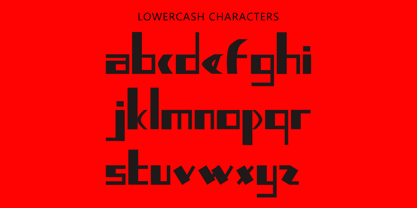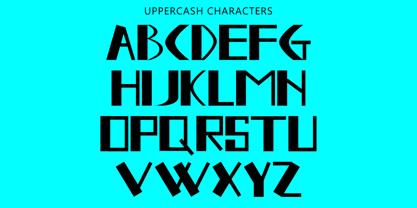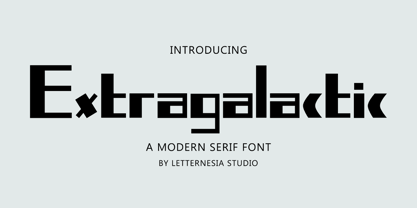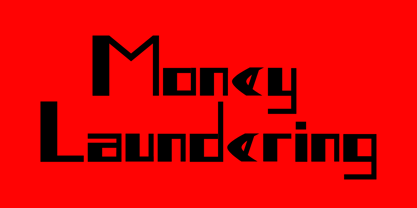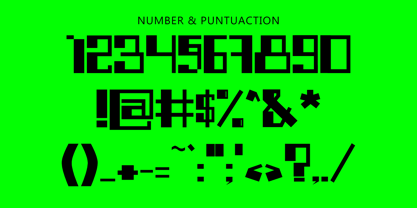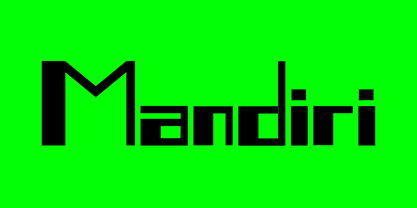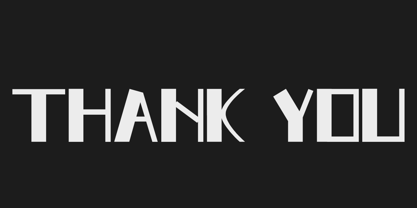
Extragalactic
by Letternesia studio
The Extragalactic Font Family was designed by Ta Siyo and published by Letternesia studio. Extragalactic contains 1 styles. More about this family
Extragalactic is a futuristic, bold typeface inspired by the mystery and grandeur of deep space. With sharp angles, sleek curves, and a high-tech aesthetic, this font is perfect for sci-fi titles, tech branding, video game interfaces, and anything that needs a touch of the unknown. Whether you're designing a poster for a space-themed film or creating a logo for a cutting-edge startup, Extragalactic delivers a sense of innovation and cosmic energy.
Designers: Ta Siyo
Foundry: Letternesia studio